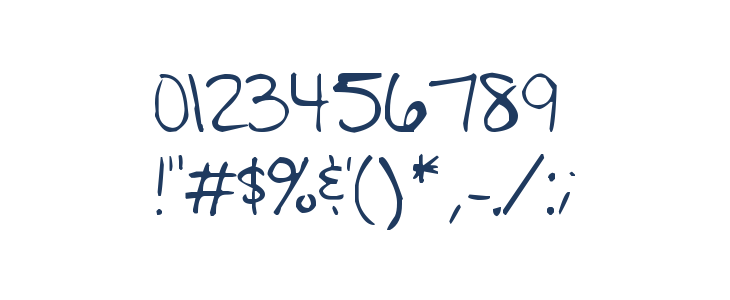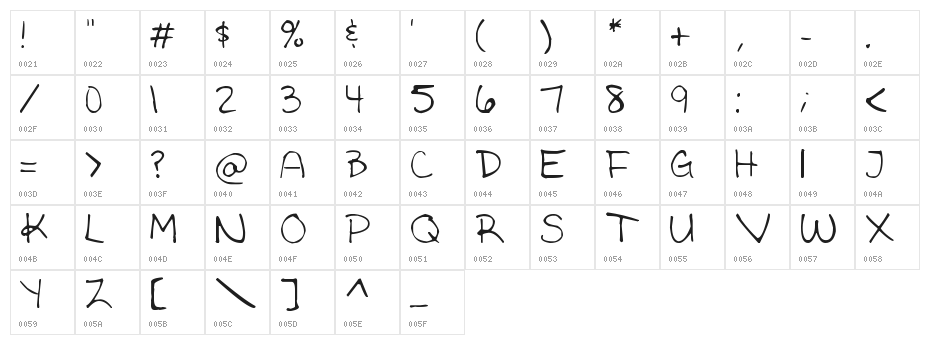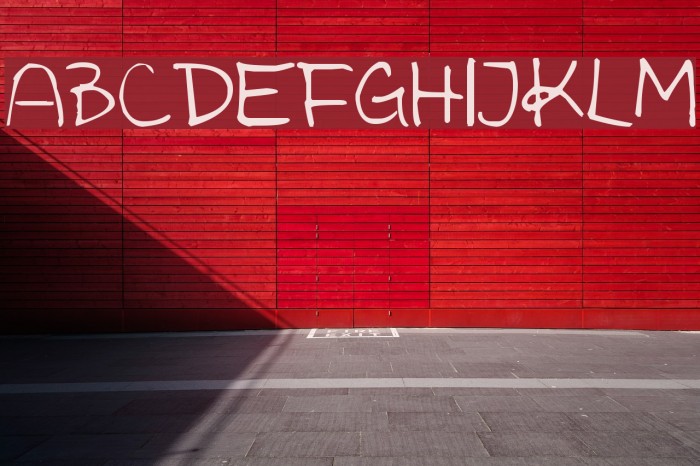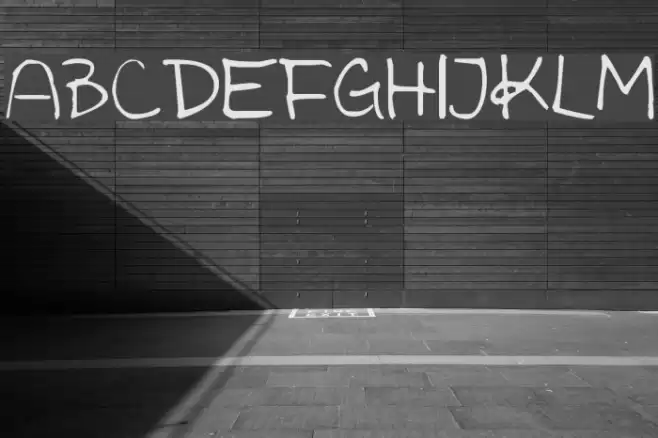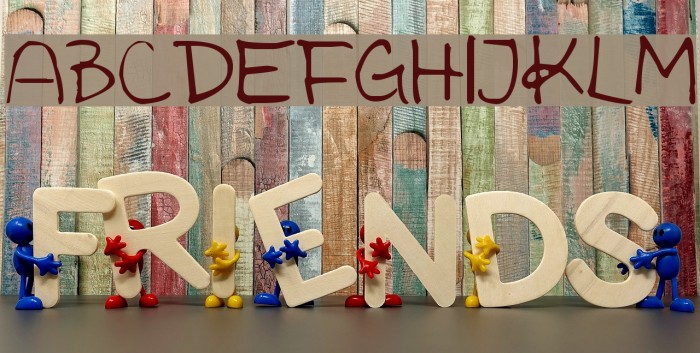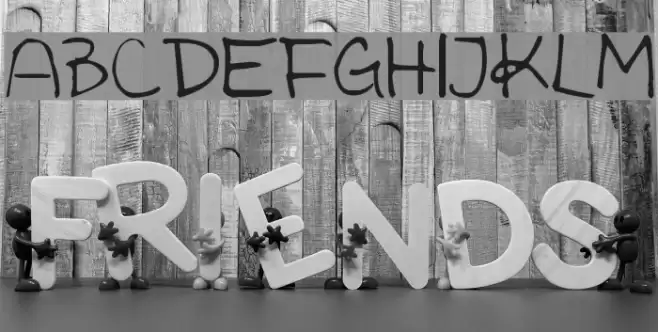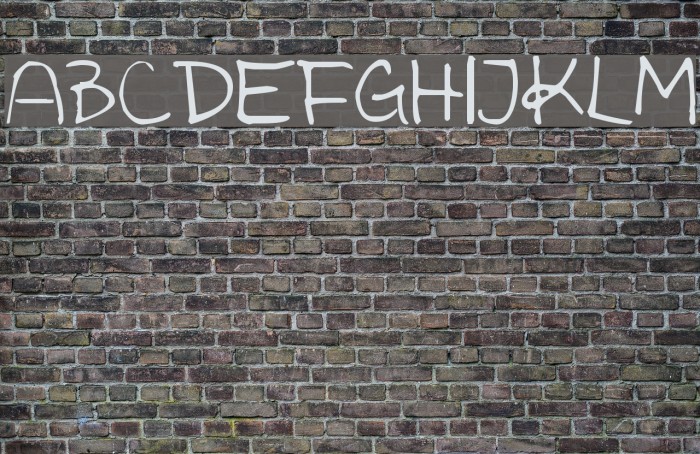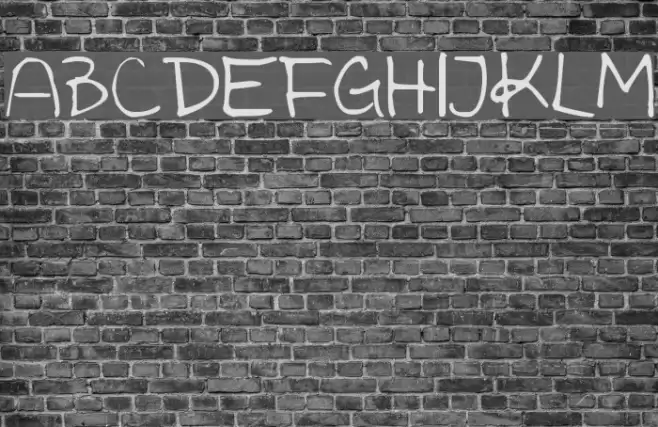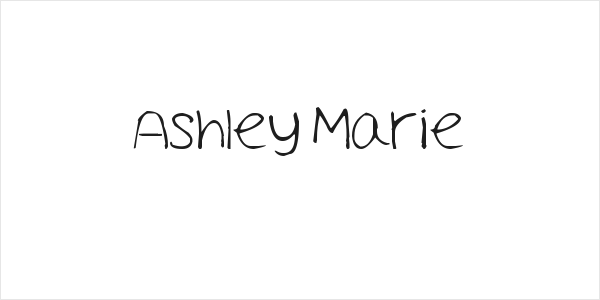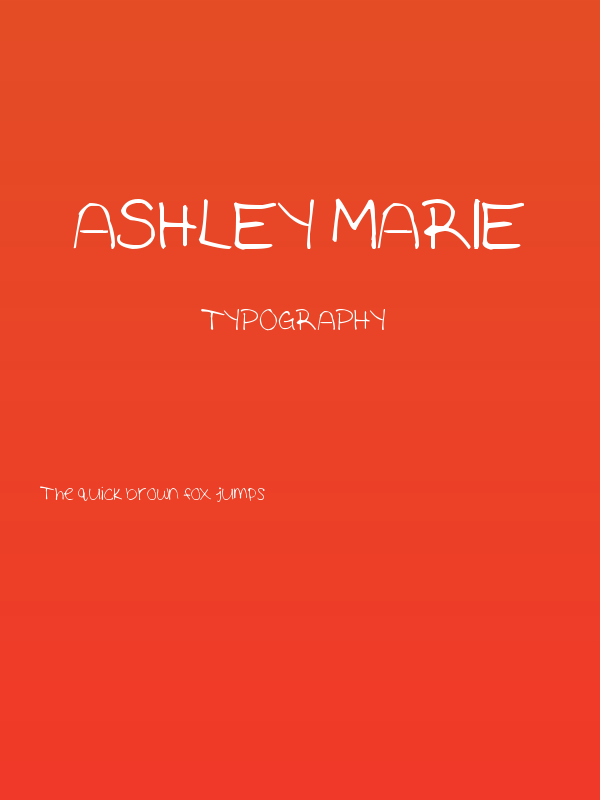
Ashley Marie Font
Ashley Marie Description
This font exhibits a playful and casual handwritten style, characterized by its irregular strokes and slightly uneven baseline. The letters are bold and expressive, with a natural flow that mimics the spontaneity of handwriting. The uppercase letters are slightly larger and more pronounced, while the lowercase letters maintain a consistent size, adding to the font's approachable and friendly appearance. The numbers and special characters follow the same informal style, making them blend seamlessly with the alphabet. This font is perfect for projects that require a personal touch or a relaxed vibe.